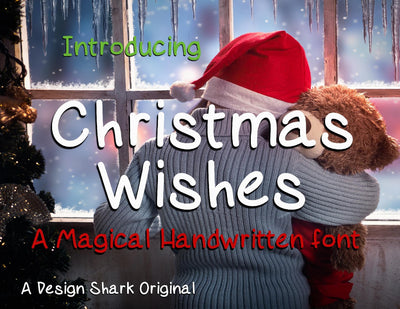
Christmas Wishes
As always our fonts and typefaces work great for logos, header, Titles, Prints & other Creative process possibilities.
Perfect for crafters and die cutting machines.